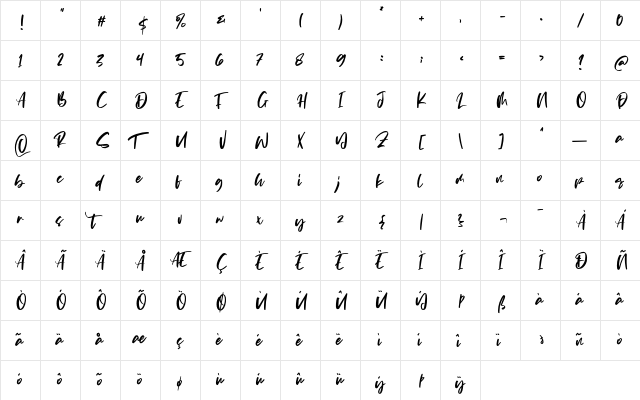
Matsuyama - Free Personal Use Regular
| Foundry | arendxstudio |
| Designer | Hatf Type |
Design Context for Matsuyama - Free Personal Use Typeface
Matsuyama - Free Personal Use is a composed and adaptable typeface that performs quietly and consistently across a wide range of design contexts.